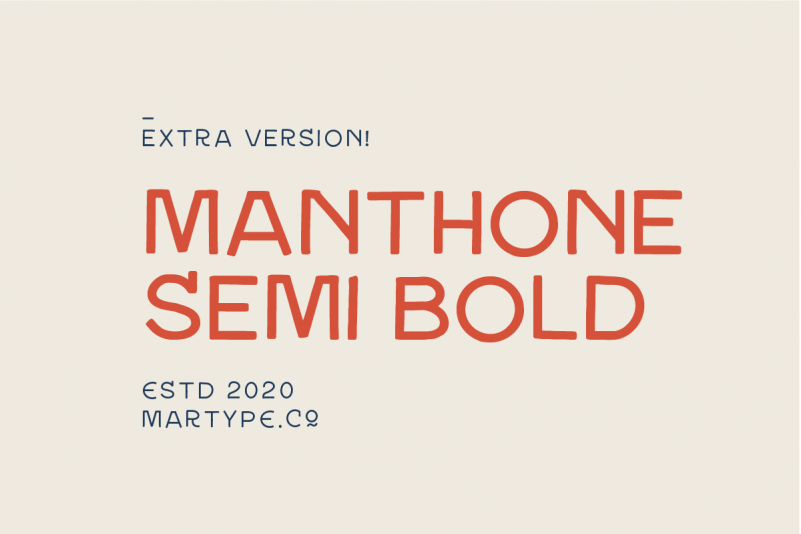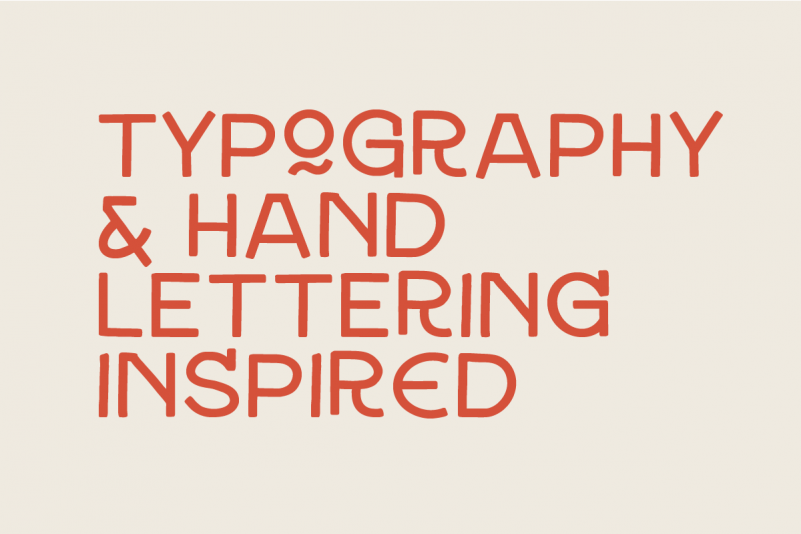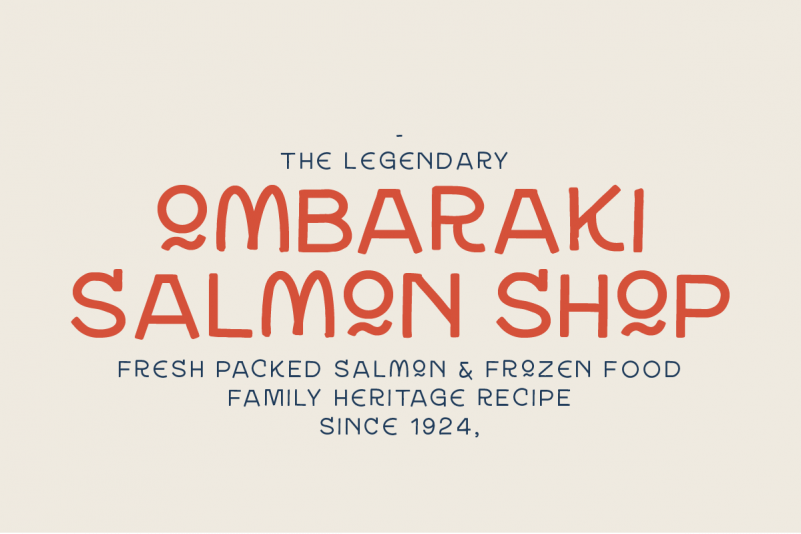
Manthone Semi Bold Font
Manthone is a vintage line typeface inspired by handmade lettering this, typeface is ready to use and suitable retro design like for Logotype, Label, Sign Painting, Badges, Poster and etc.